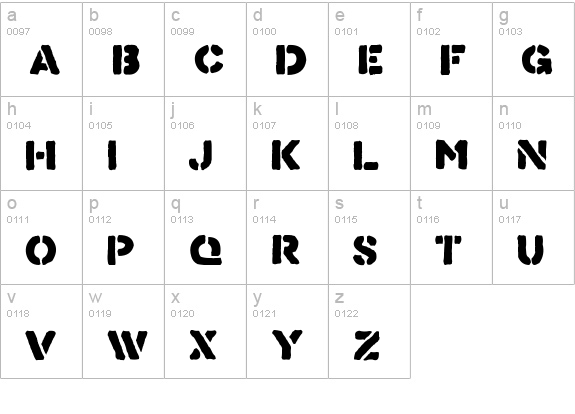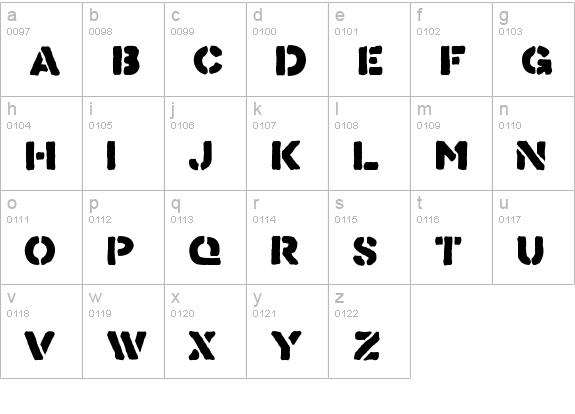
Know Your Product Font Details
Introducing Know Your Product font, a versatile and modern typeface designed to elevate your creative projects to the next level. With its sleek lines and contemporary feel, this font is perfect for branding, advertising, and design work that requires a touch of sophistication. What sets Know Your Product font apart is not just its stylish appearance, but also the fact that it is completely free to download at FontsMarket.com. Yes, you read that right – this high-quality font is available at no cost, making it accessible to designers, artists, and creatives of all types. Whether you're working on a logo, website, poster, or any other design project, Know Your Product font will help you make a lasting impression. So why wait? Head over to FontsMarket.com and get your hands on this fantastic font today!